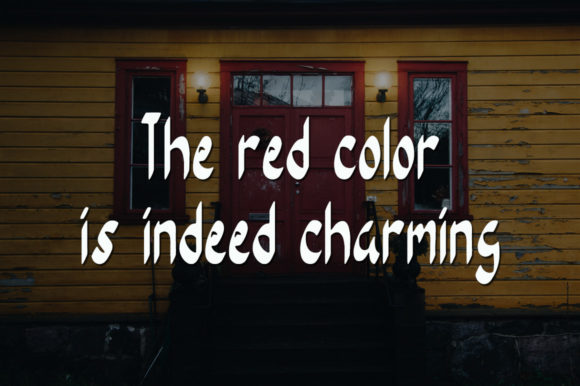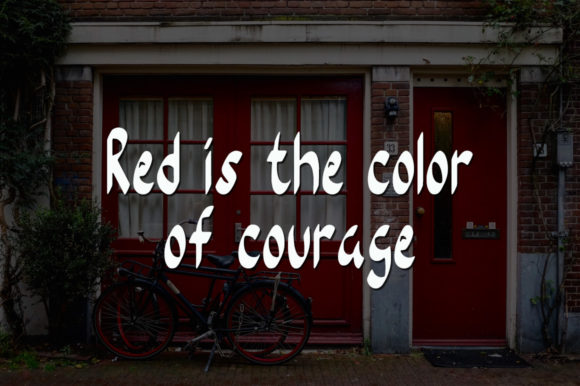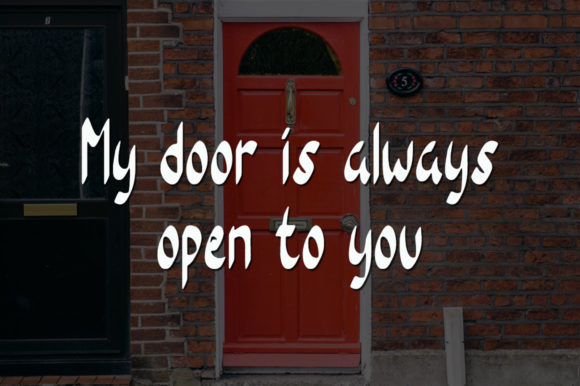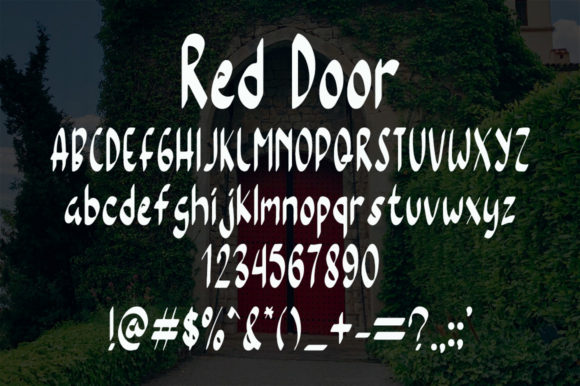
Introduction to Red Door Font Font
Fonts play a crucial role in design, and the Red Door Font font is a typeface that brings both character and versatility to any project. Whether you’re working on a branding project, a website, or a print design, the Red Door Font font offers a unique style that can elevate your work.
Red Door is a bold and casual handwritten font.
Add it to your most creative ideas and notice how it makes them come alive .
Key Features of Red Door Font Font
Why Choose Red Door Font Font?
The Red Door Font font is more than just a typeface – it’s a design tool that helps you communicate your message with style and clarity. Its unique character set and versatile design make it suitable for a wide range of applications, from elegant invitations to bold headlines.
With its carefully crafted letterforms and balanced proportions, the Red Door Font font ensures readability and visual appeal across all mediums.
What makes Red Door Font font special?
The Red Door Font font stands out with its unique design, exceptional readability, and versatility across various design applications.